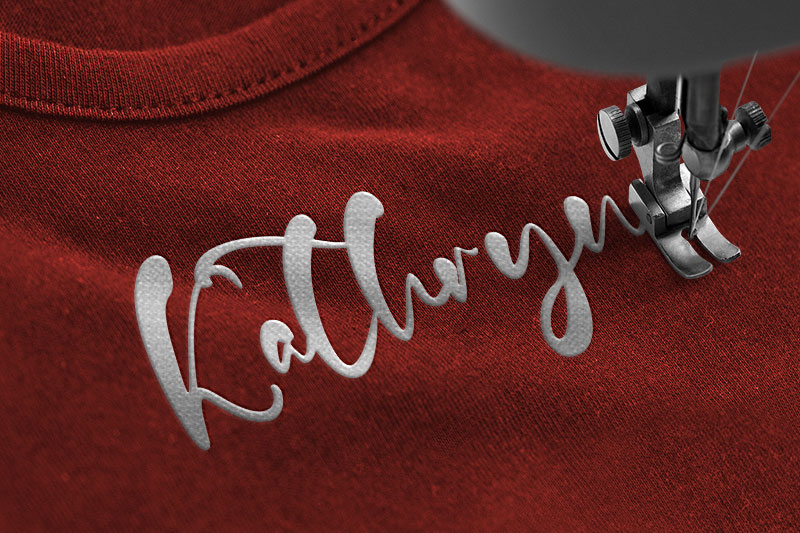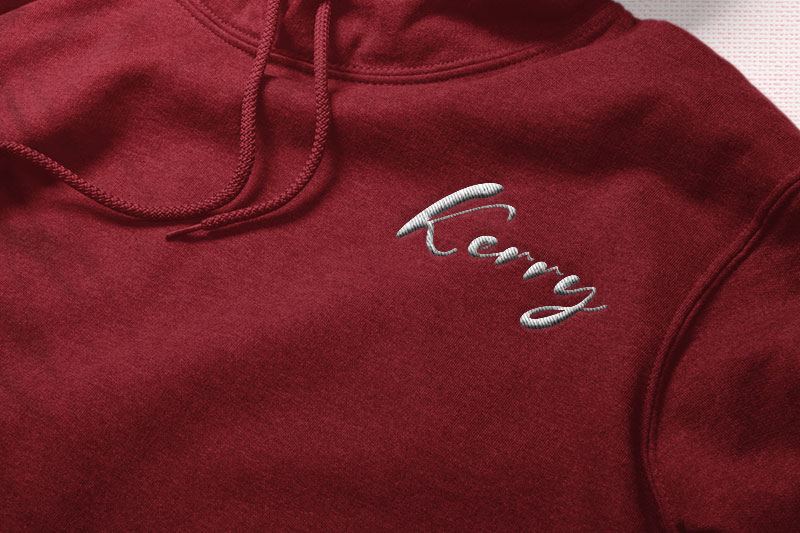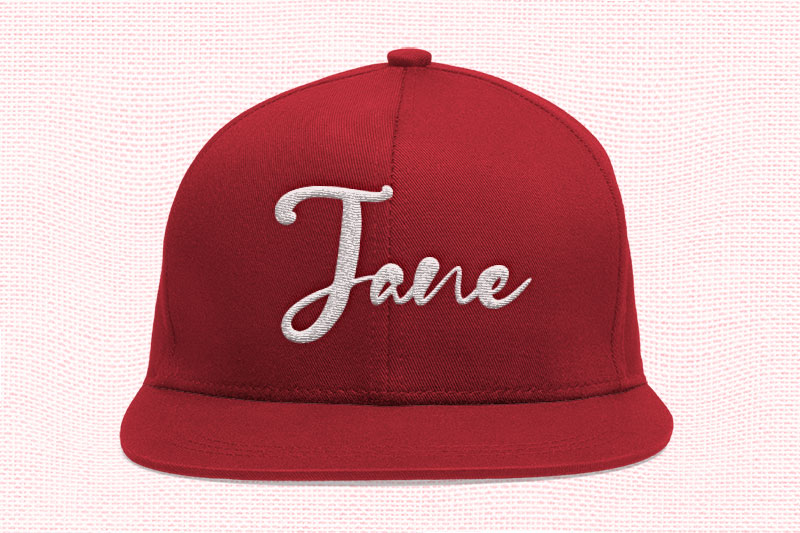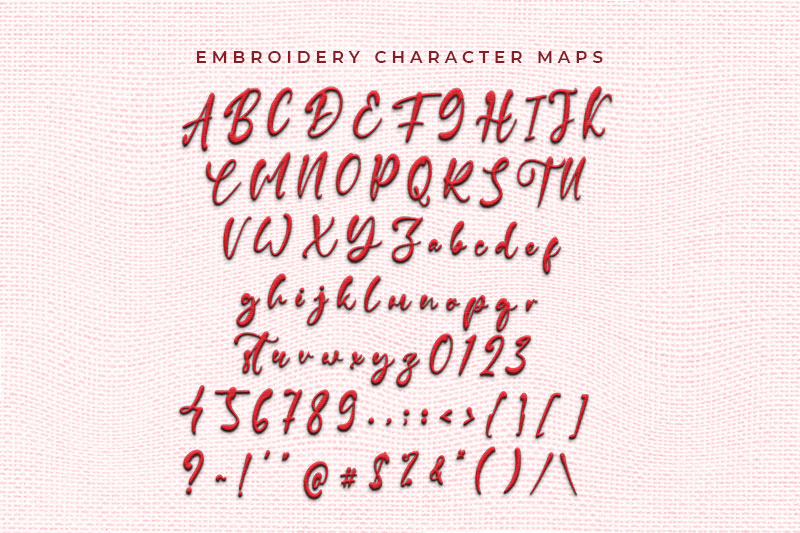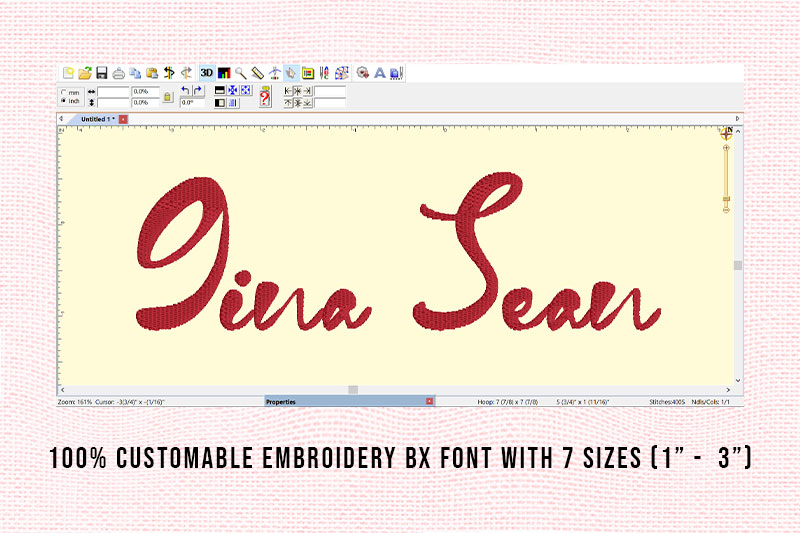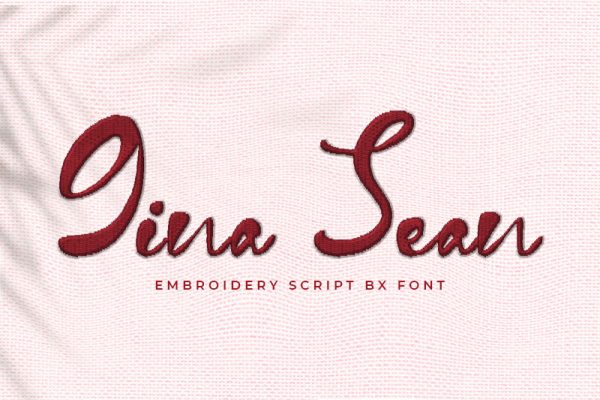
Gina Sean Embroidery Font is a new creation that is created as attractive as possible by adding a variation of the embroidery font. This font is here to provide another reference for those who are interested in using an embroidered font for many products. Gina Sean Embroidery Font belongs to illegible fonts. The appearance of this font is perfect when embroidered with small embroidery.
Gina Sean Embroidery Font is one of the simple embroidery fonts that are advisable to be combined with several products such as t-shirts, jackets, hoodies, and hats. This font can be bordered as wall hangings and hats made of cloth.
Gina Sean Embroidery Font creates a soft, simple, and straightforward impression of the product it features. This impression makes Gina Sean Embroidery Font the font that must be the top choice when choosing an embroidery font. It is beautiful when combined with the right colors and decorations.